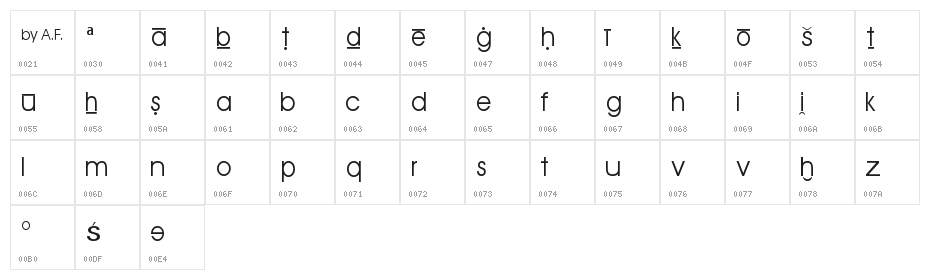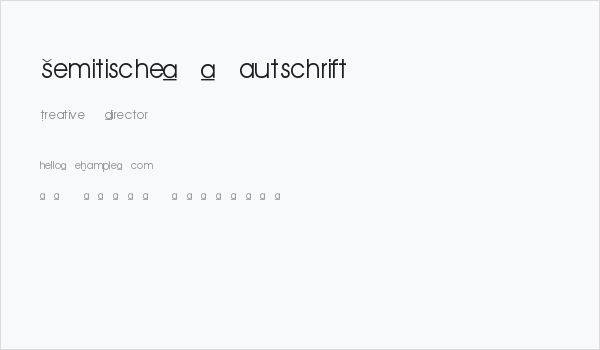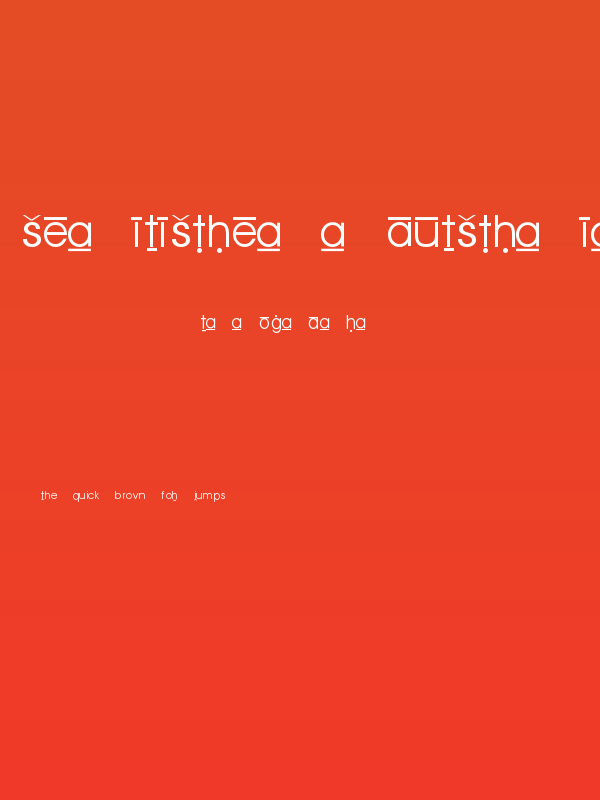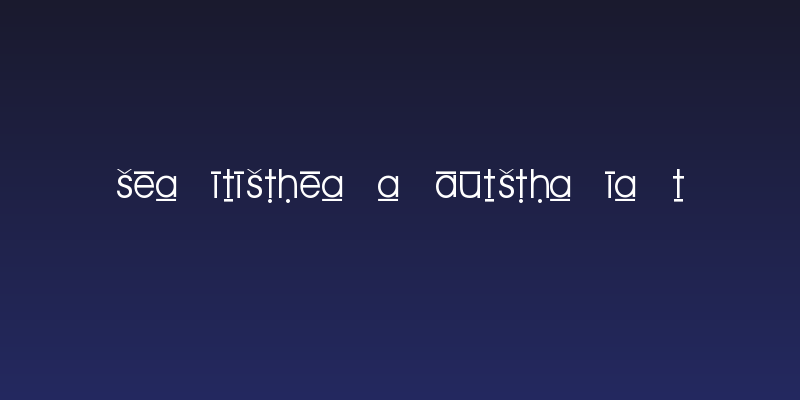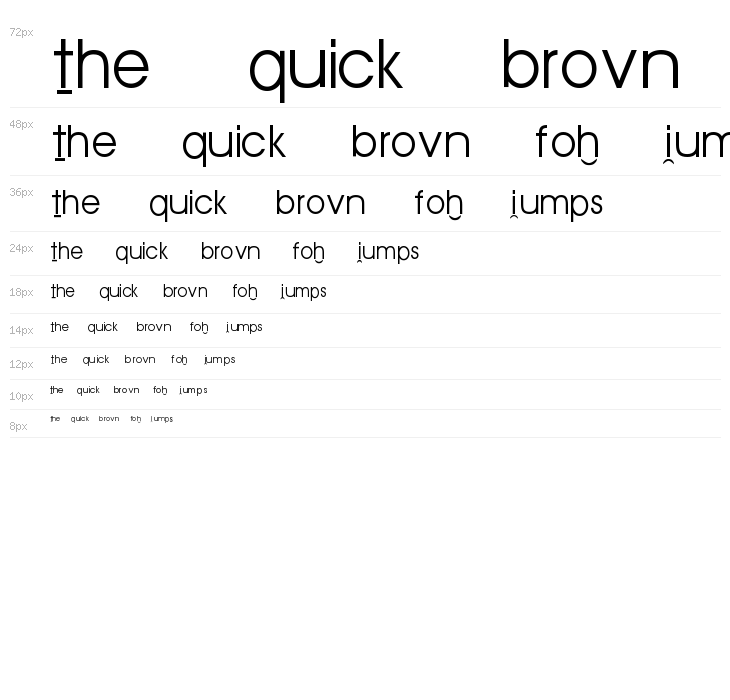
Semitische-Lautschrift Font
Semitische-Lautschrift Description
This font features a clean and modern design with a focus on clarity and readability. It incorporates diacritical marks and special characters, making it suitable for linguistic and phonetic applications. The characters are evenly spaced with a consistent stroke width, providing a balanced and harmonious appearance. The font's simplicity and geometric shapes contribute to its contemporary aesthetic, while the inclusion of unique symbols adds a distinctive touch.
| Use Case | Educational materials, linguistic texts, phonetic transcriptions. |
| Proposed Projects | Ideal for educational materials, linguistic studies, and phonetic transcription projects. |